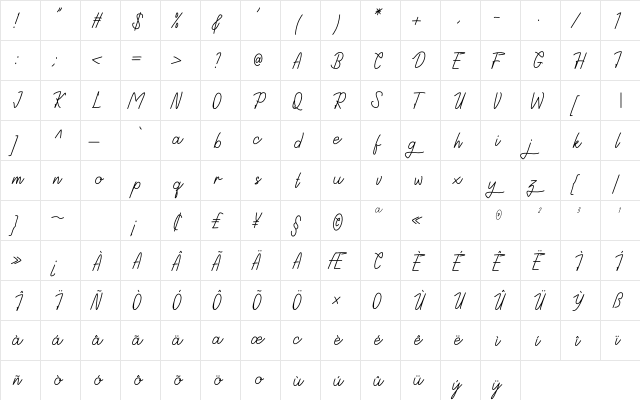
Astida Regular Font Preview
Astida Regular
Design Context for Astida Typeface
Astida takes a measured approach to typography — its balanced proportions and neutral character make it a reliable workhorse for both digital and print work.